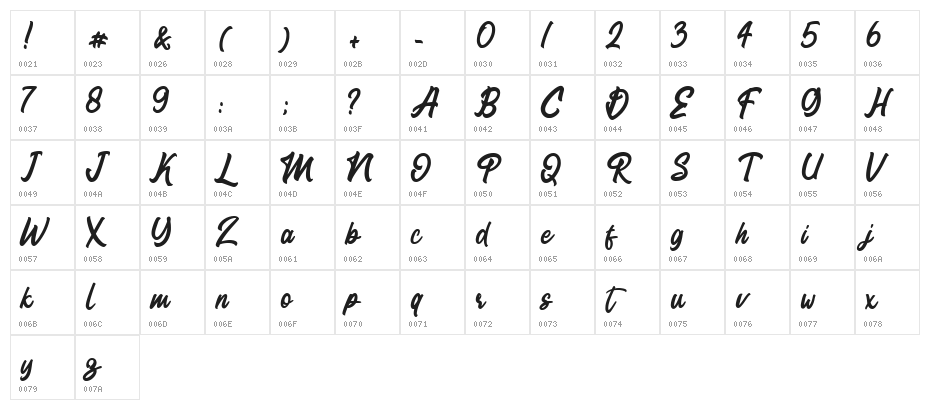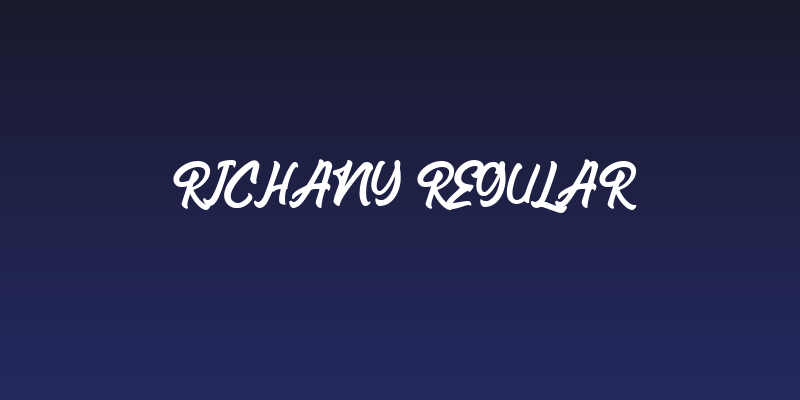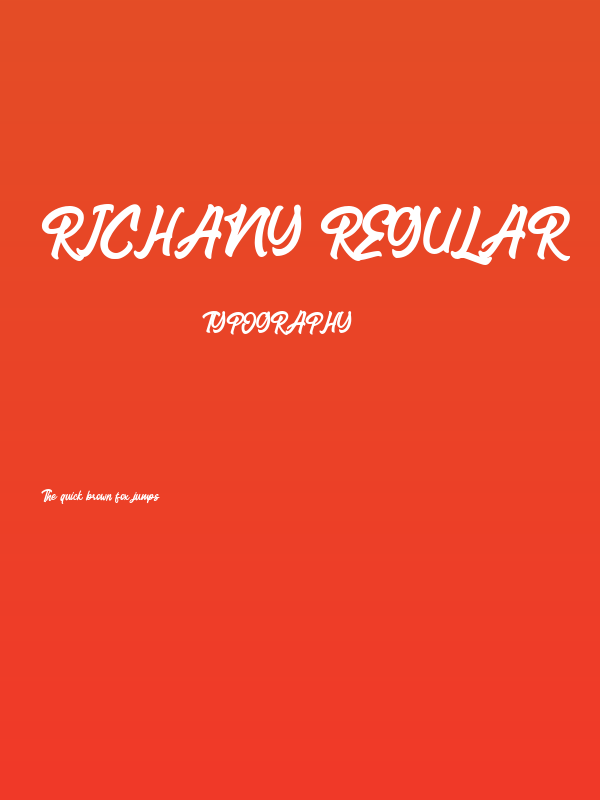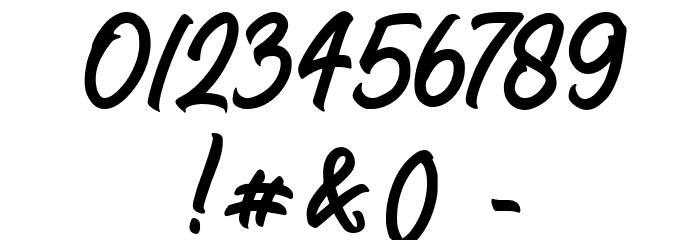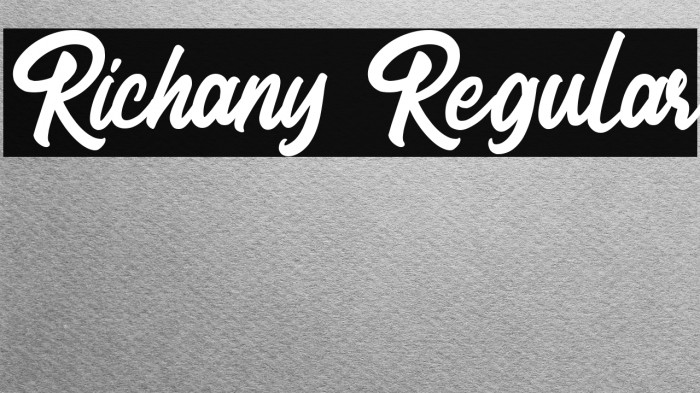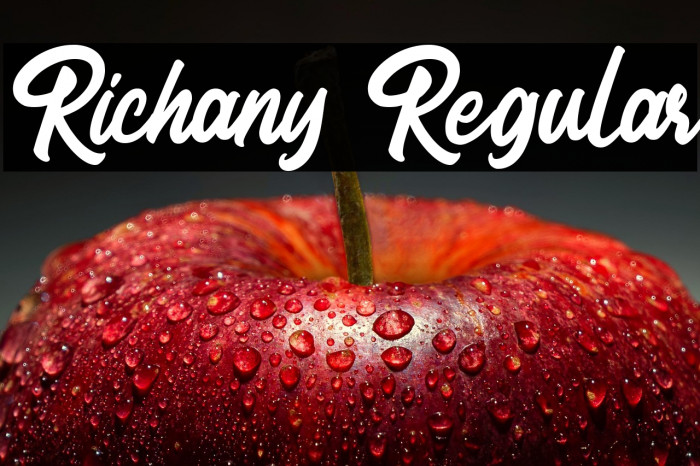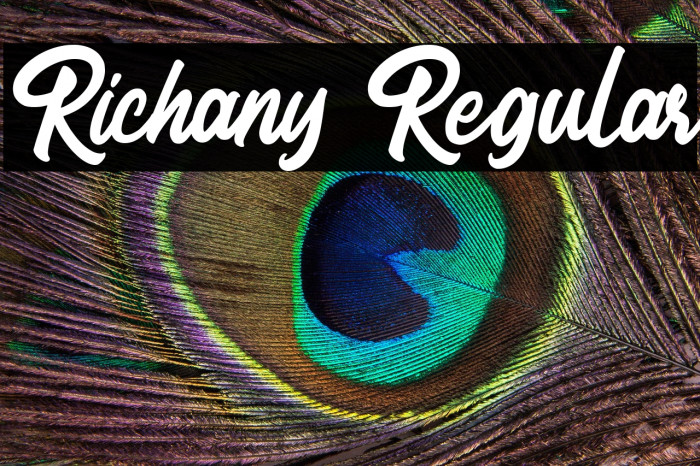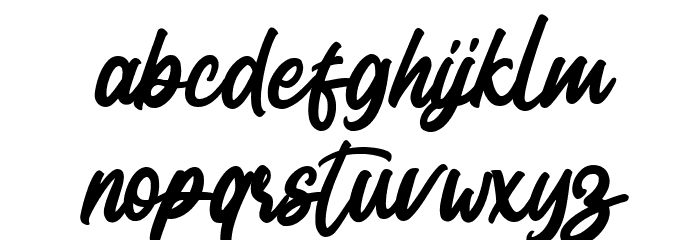
Richany Regular Font
Richany Regular Description
This font exhibits a bold and expressive script style, characterized by its fluid and dynamic strokes. The letters are interconnected, creating a sense of continuity and movement. The uppercase letters are slightly more elaborate, with sweeping curves and flourishes, while the lowercase letters maintain a consistent flow. The numbers and special characters are designed to match the overall aesthetic, ensuring a cohesive look across all elements. The font's boldness and distinct style make it suitable for projects that require a strong visual impact.